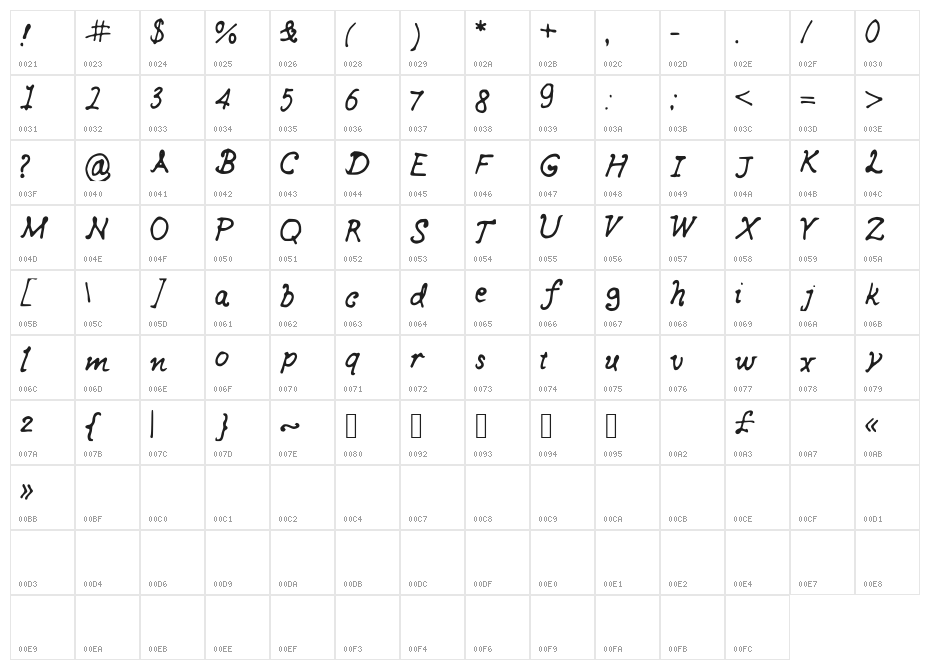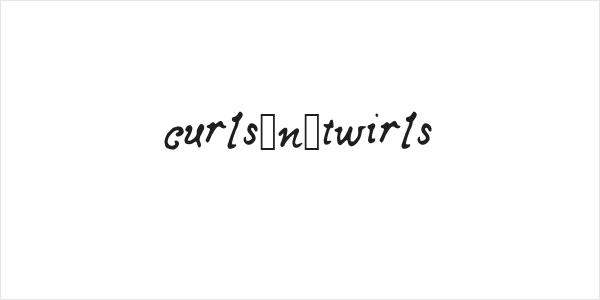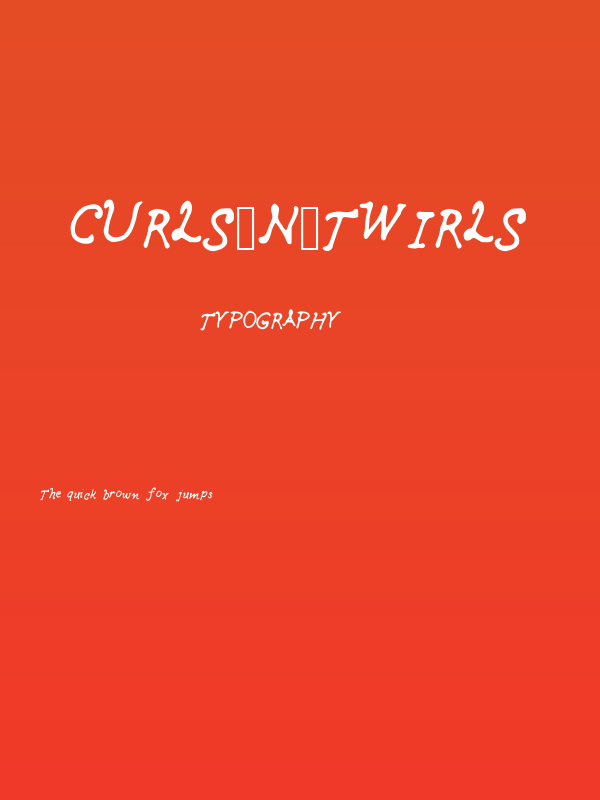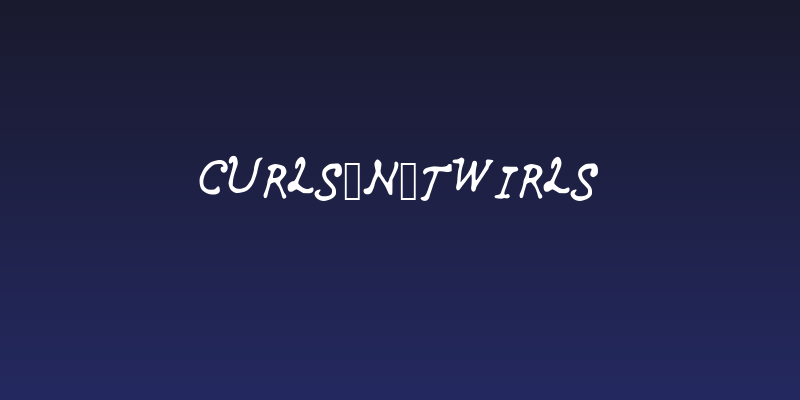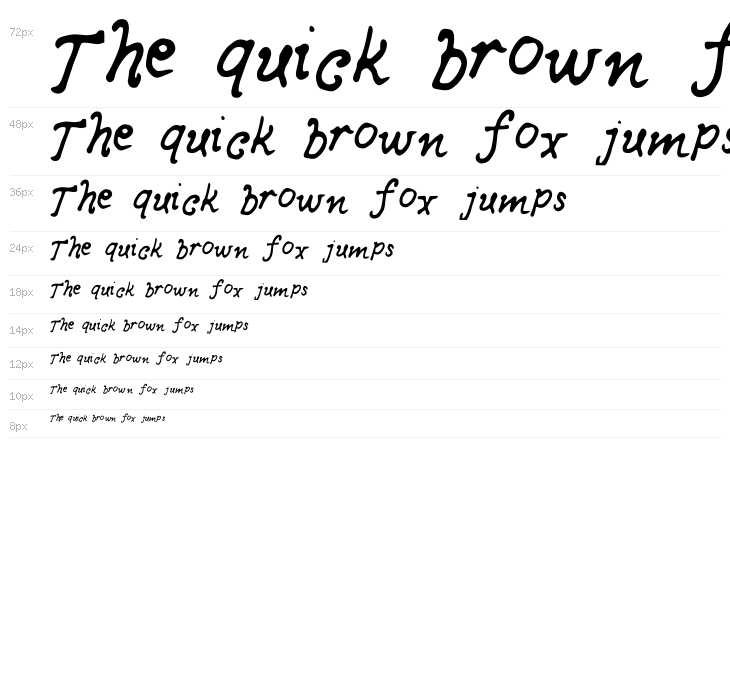
curls_n_twirls Font
curls_n_twirls Description
This font exudes a playful and whimsical charm with its curly and twirly letterforms. Each character is designed with a sense of movement, featuring loops and curves that give it a lively appearance. The uppercase letters maintain a consistent height, while the lowercase letters vary slightly, adding to the font's dynamic feel. The numbers and special characters are crafted with the same playful style, ensuring a cohesive look across all text. This font is perfect for projects that require a touch of fun and creativity, making it ideal for children's books, playful branding, or any design that aims to capture a sense of joy and imagination.
| Use Case | Headlines, Logos, Creative Text |
| Proposed Projects | Ideal for children's books, playful branding, greeting cards, and creative invitations. |